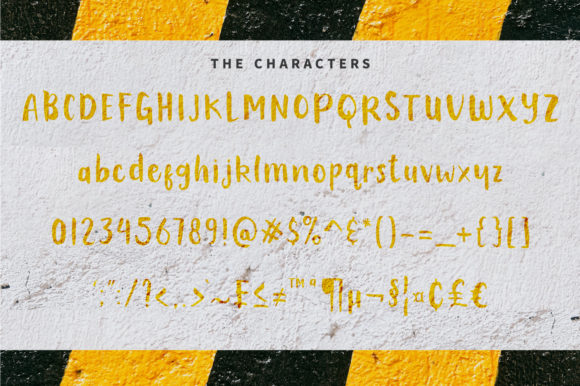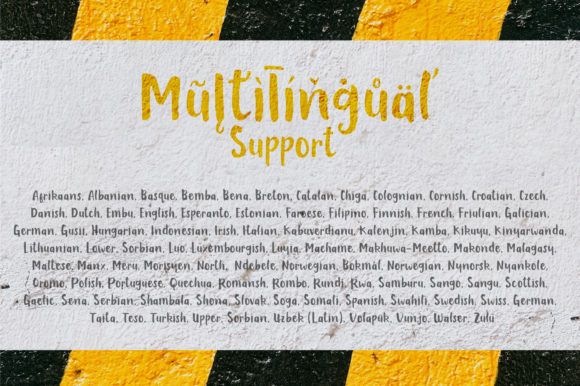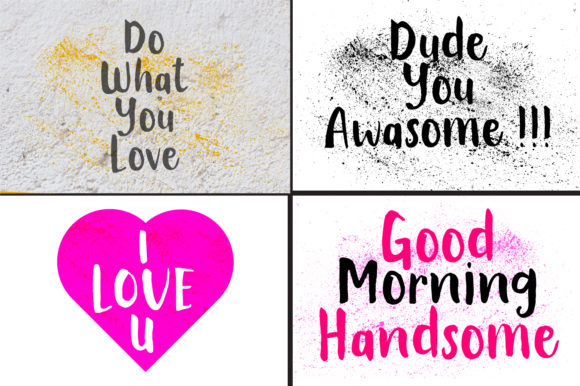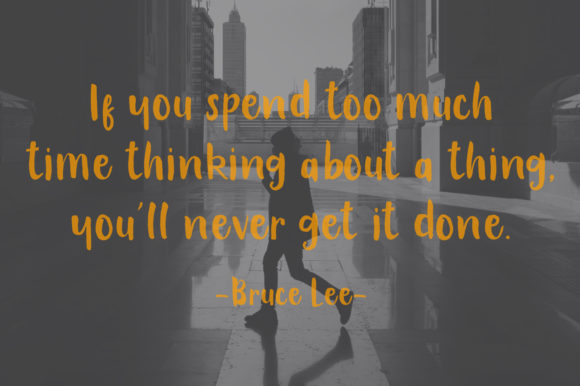
Tamarind Brush Font
About Tamarind Brush Font
Tamarind Brush is a cool and relaxed handwritten font. Suitable to a wide variety of designs due to its neat and simple style, this font has the potential to become your favorite go-to font, no matter the occasion!